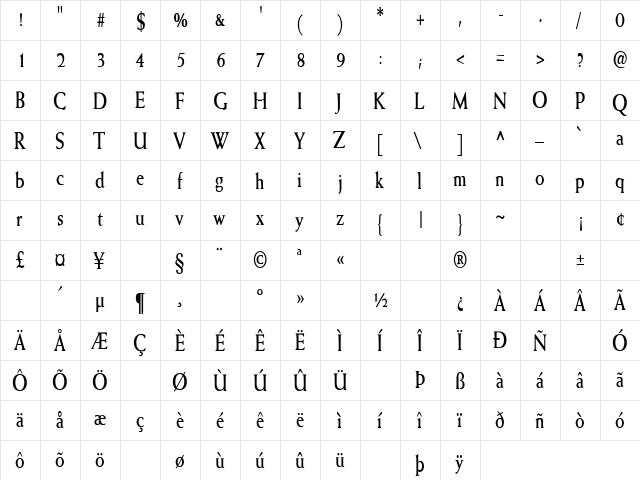
Woman Of The World 4 Regular
Design Context for Woman Of The World 4 Typeface
Woman Of The World 4 takes a measured approach to typography — its balanced proportions and neutral character make it a reliable workhorse for both digital and print work.